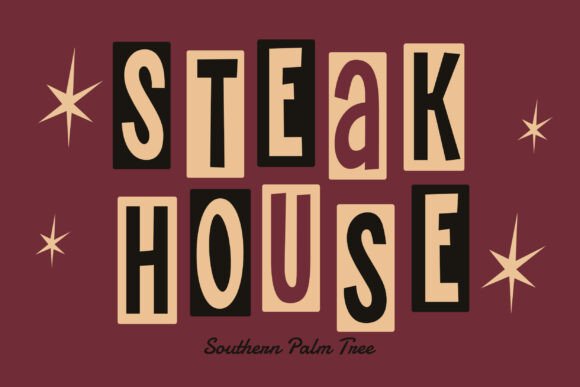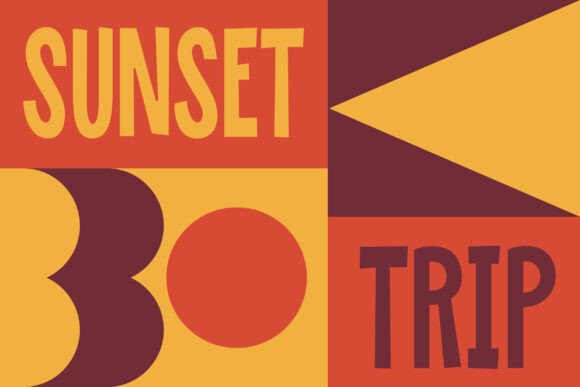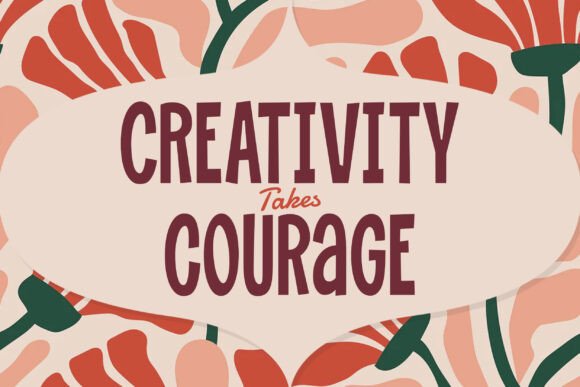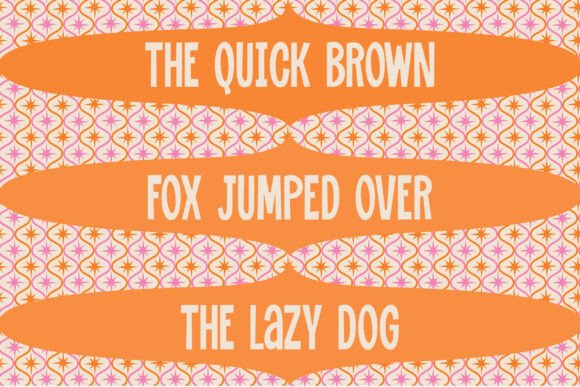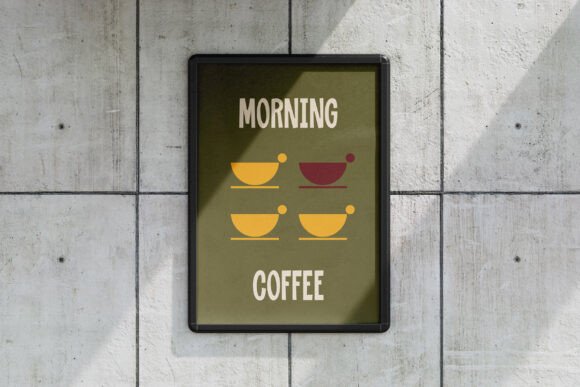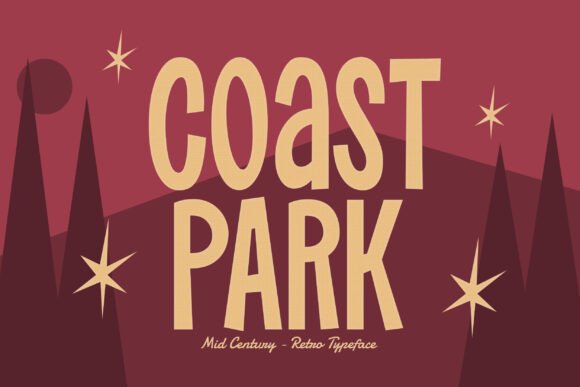
Introducing Coast Park Font: A Sweet and Friendly Handwritten Delight
Are you on the hunt for a font that can add a touch of warmth and personality to your designs? Look no further than Coast Park Font, a sweet and friendly handwritten font that’s perfect for a wide range of creative projects. With its natural and unique style, Coast Park is sure to become a go-to choice for designers and crafters alike.
The Perfect Blend of Style and Versatility
Coast Park Font boasts a charming, handwritten aesthetic that’s both approachable and visually appealing. Its unique style makes it incredibly fitting for a large pool of designs, from rustic and vintage-inspired projects to modern and playful ones. Whether you’re working on a logo, branding materials, social media graphics, or even a website, Coast Park is the perfect choice to add a personal touch.
What Makes Coast Park Font Stand Out?
- Unique and Handwritten Style: Coast Park Font features a one-of-a-kind, handwritten design that’s sure to make your projects stand out from the crowd.
- Natural and Friendly Vibe: The font’s natural and friendly style makes it perfect for designs that require a personal touch, such as invitations, greeting cards, and more.
- Highly Versatile: Coast Park Font can be used for a wide range of projects, from digital designs to print materials, and everything in between.
- Easy to Read: Despite its unique style, Coast Park Font is incredibly easy to read, making it perfect for body text and other written content.
As mentioned earlier, Coast Park Font is incredibly versatile, and its uses are only limited by your imagination. Here are a few ideas to get you started:
- Branding and Logo Design: Use Coast Park Font to create a unique and memorable logo that reflects your brand’s personality.
- Social Media Graphics: Add a personal touch to your social media graphics, such as Instagram posts, Facebook covers, and more.
- Invitations and Greeting Cards: Create beautiful, handmade-style invitations and greeting cards that are sure to impress.
- Web Design: Use Coast Park Font to add a touch of warmth and personality to your website’s design.
Tips for Using Coast Park Font
To get the most out of Coast Park Font, here are a few tips to keep in mind:
- Experiment with Font Sizes: Coast Park Font looks great in a variety of font sizes, so don’t be afraid to experiment to find the perfect size for your project.
- Pair with Other Fonts: Coast Park Font pairs well with a variety of other fonts, so try pairing it with some of your favorite fonts to create a unique look.
- Use for Headings and Body Text: Coast Park Font is easy to read, making it perfect for both headings and body text.
Coast Park Font is a sweet and friendly handwritten font that’s perfect for designers and crafters looking to add a personal touch to their projects. With its unique style, natural vibe, and high versatility, Coast Park is sure to become a go-to choice for a wide range of creative projects. So why wait? Download Coast Park Font today and start creating something amazing!